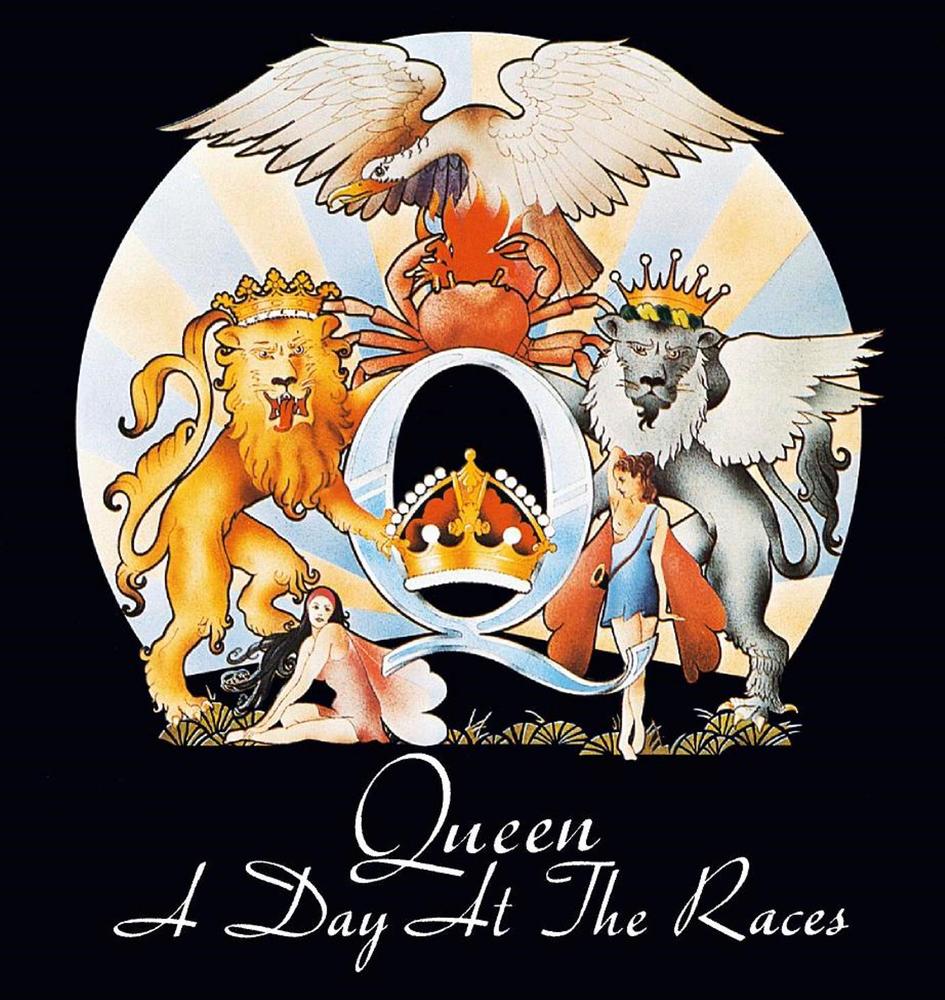
A Day at the Races Font
Fonts in UseA Day at the Races is the fifth studio album by the British rock band Queen, released in 1976. The album features a diverse range of musical styles and includes some of Queen's most well-known songs, such as "Somebody to Love" and "Tie Your Mother Down."
The font used in the cover art is very similar to a digital font named Parfum, created by Ralph M. Unger. Parfum was inspired by the Trafton Script typeface designed by Howard Trafton, which was originally released by Bauer type foundry in 1933.